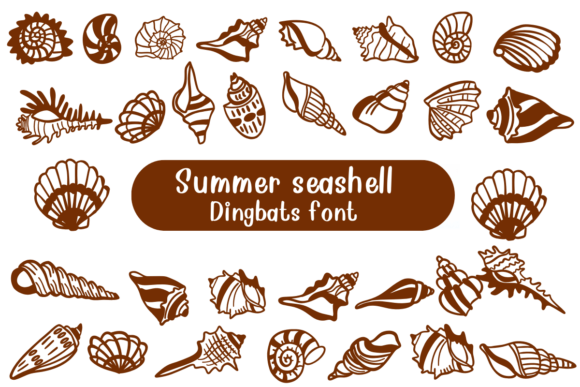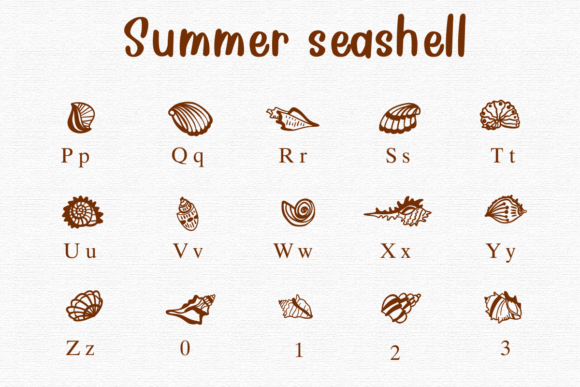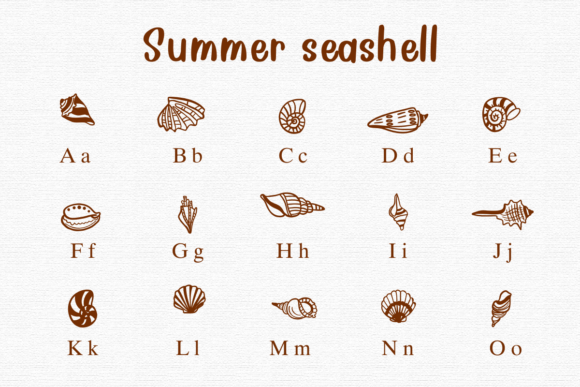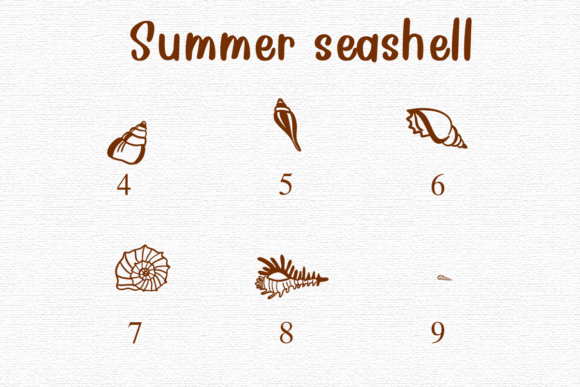
Summer Seashell Font
About the Summer Seashell Font
Elevate your designs with Summer Seashell Font, a font that combines sophistication with readability. Summer Seashell is a dingbats font with a nautical theme. This font can enhance your creative projects such as wedding invitations, DIY, crafts, decorations, logos, and many other creative ideas.
Summer Seashell Font Usage Examples
Summer Seashell Font Example